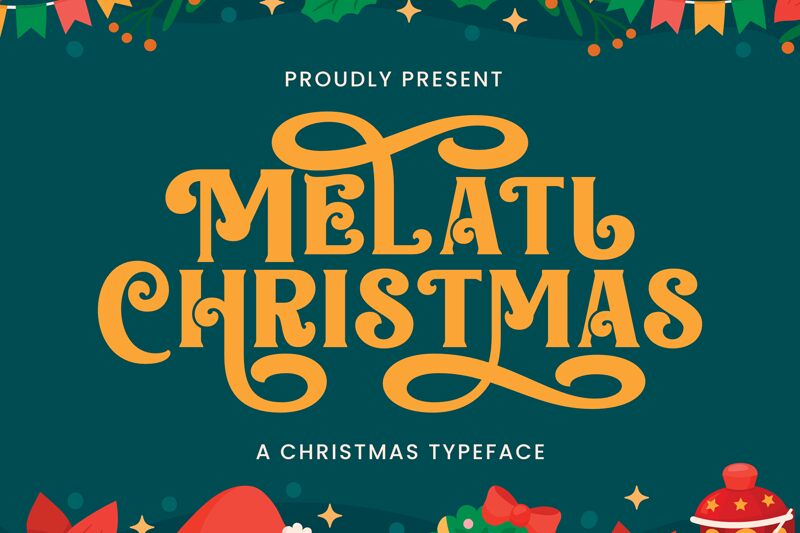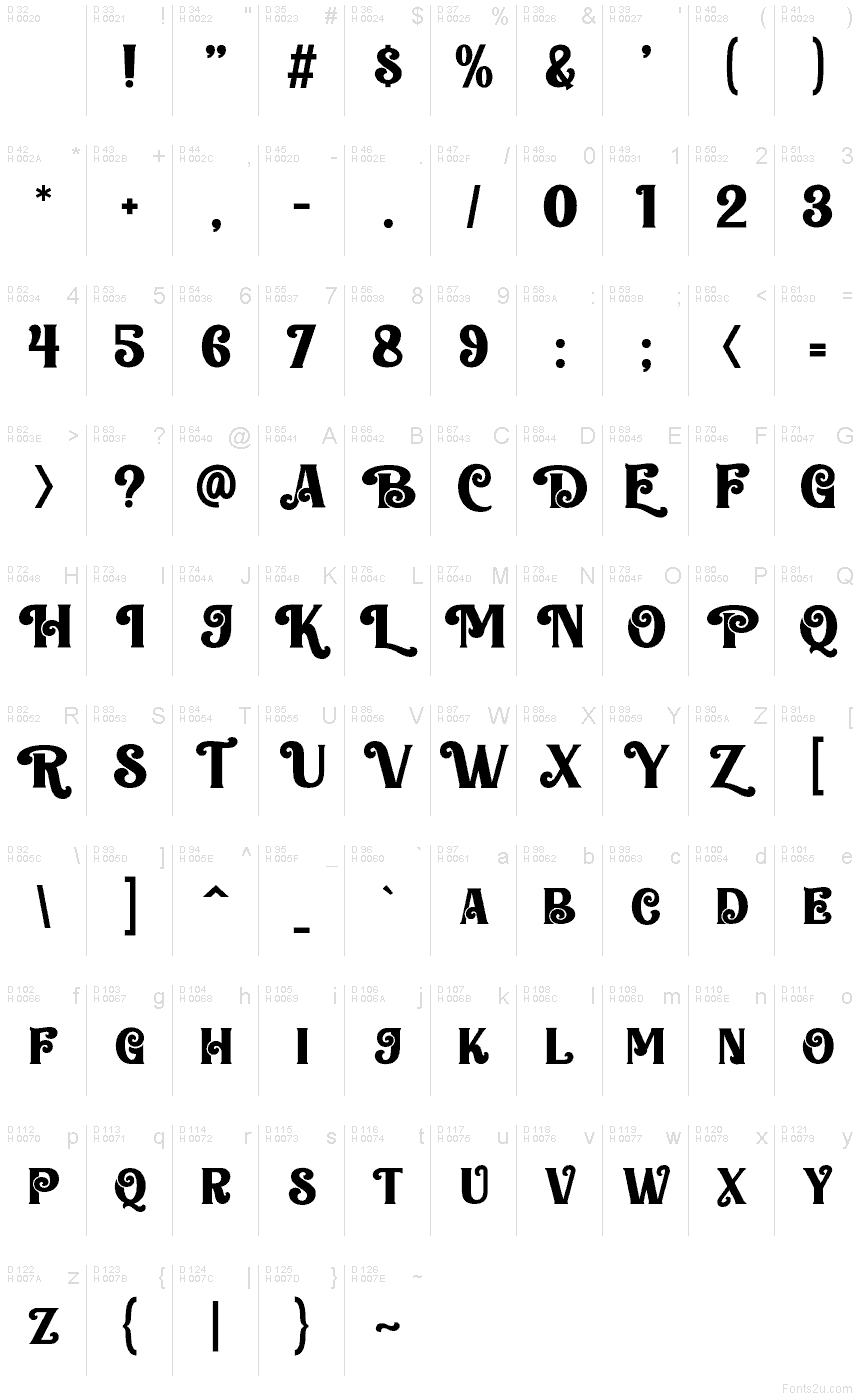
Melati Christmas Demo Regular
Melati Christmas font by Ahweproject is a free holiday decorative typeface that wraps your words in classic Christmas charm. Tall, chunky letterforms keep everything bold and readable, while the playful curls feel like ribbons twirling around gift boxes. There’s a cozy, storybook warmth to it—like vintage greeting cards and hand-painted shop windows dusted with snow.
Using Melati Christmas, you can bring that festive mood to greeting cards, party invitations, gift tags, social media posts, event posters, banners, and product packaging. The sturdy shapes hold up beautifully at large sizes, so don’t be shy about oversized headlines; then pair this free font with a simple sans serif for body text to keep things balanced and easy to read.